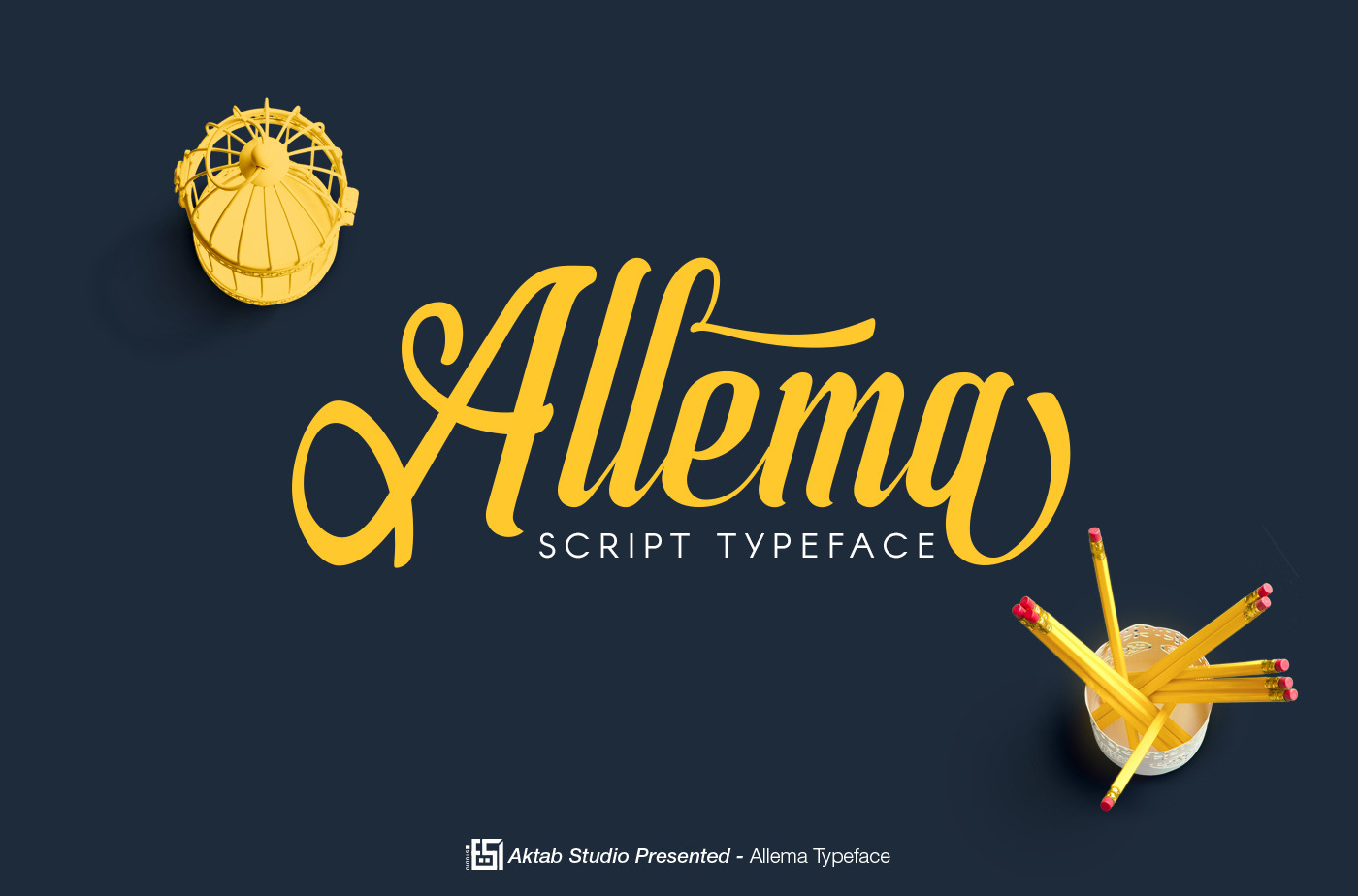
Allema Script Font
Allema Script is Modern Calligraphy with 1000+ glyphs and more features. This font was designed by handwriting, and it has a modern and unique forms of calligraphy, the writing style is very soft. Allema has a very unique style of calligraphy, it is very suitable for use in the work of modern design.
The Features of this fonts is:
- Standart ligatures
- Discretionary ligatures
- Contextual Alternates
- Fraction
- Stylistic Sets
- Multilingual supports